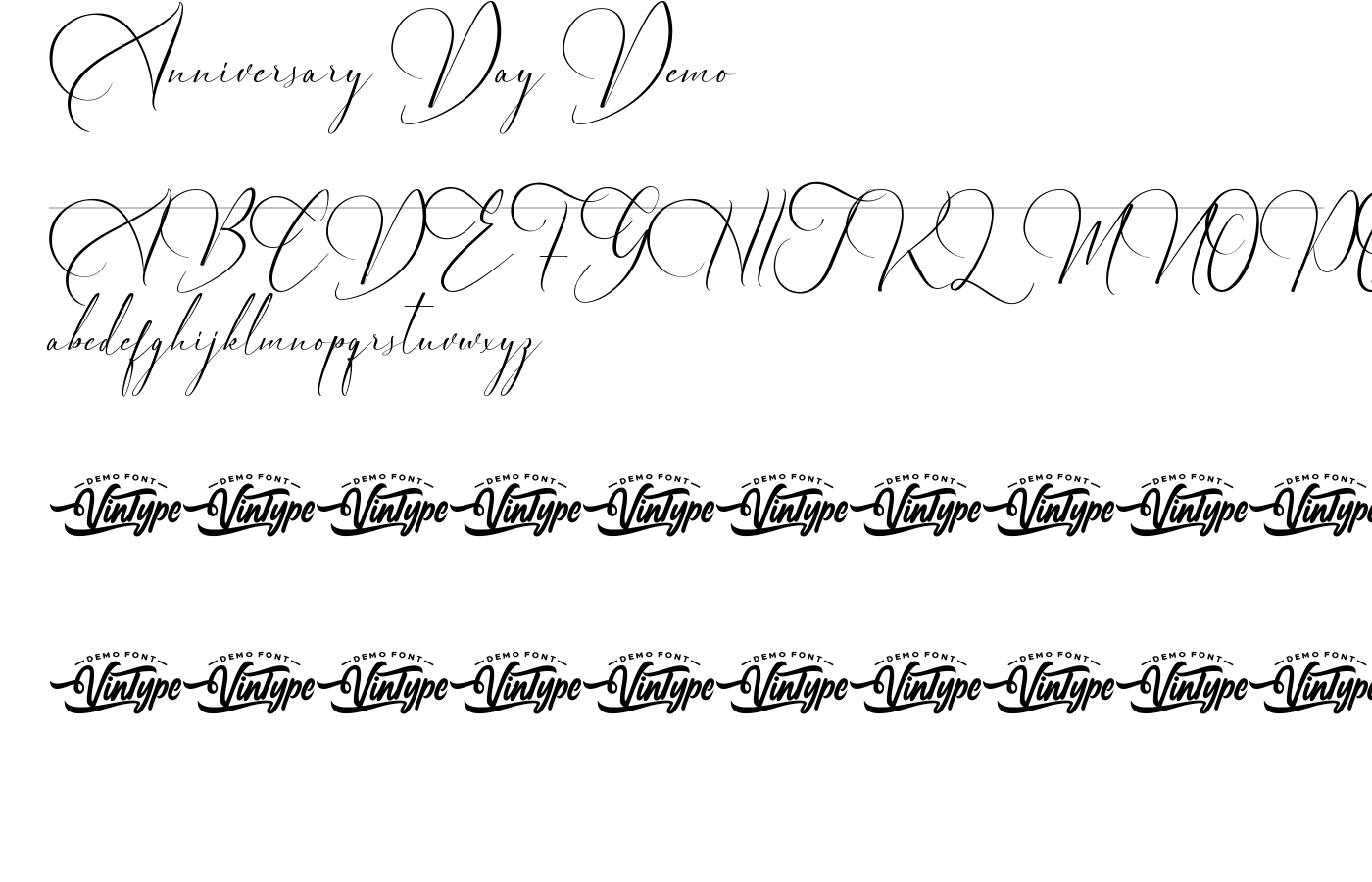
Anniversary Day Demo is an elegant, delicate script font featuring slender, flowing letterforms with high contrast between thin and thick strokes, creating a graceful and sophisticated appearance. Its intricate swashes and loops give it a romantic, vintage charm, making it perfect for wedding invitations, luxury branding, and formal event designs where a refined, stylish touch is desired. This font shines best in headlines and decorative uses where its ornate details can truly stand out.
Anniversary Day Demo Font
About Anniversary Day Demo Font
| Font family | Anniversary Day Demo Font |